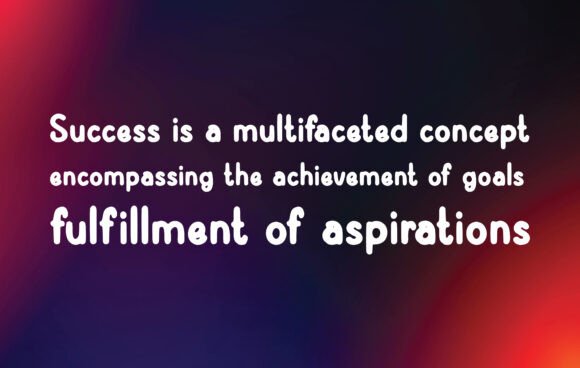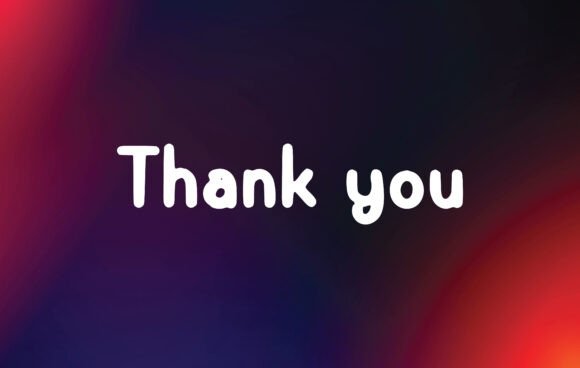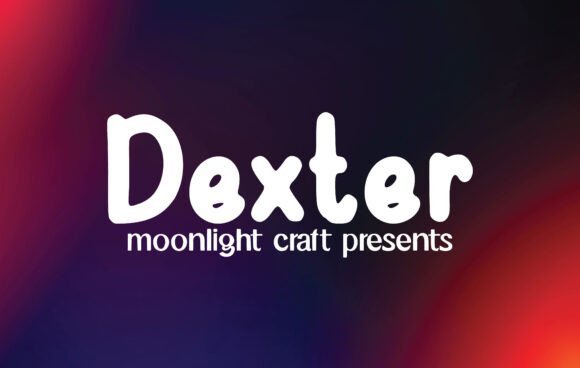
Introduction to Dexter Font
Dexter is a lovely and beautiful handwritten font.
Key Features of Dexter Font
Why Choose Dexter Font?
Dexter Font offers exceptional quality and versatility, making it a valuable addition to your design toolkit. Whether you’re creating for personal projects or commercial use, Dexter Font delivers professional results.